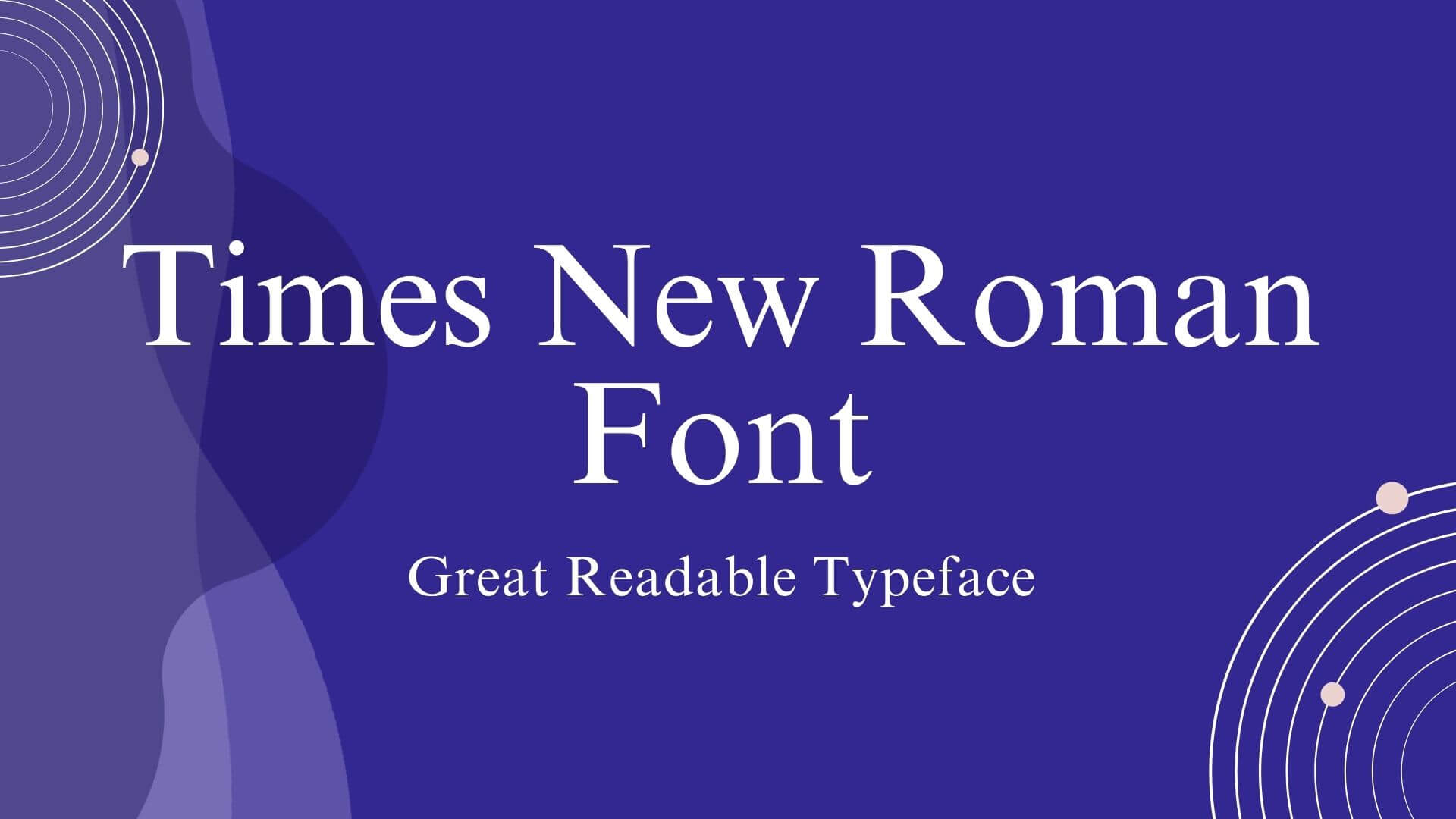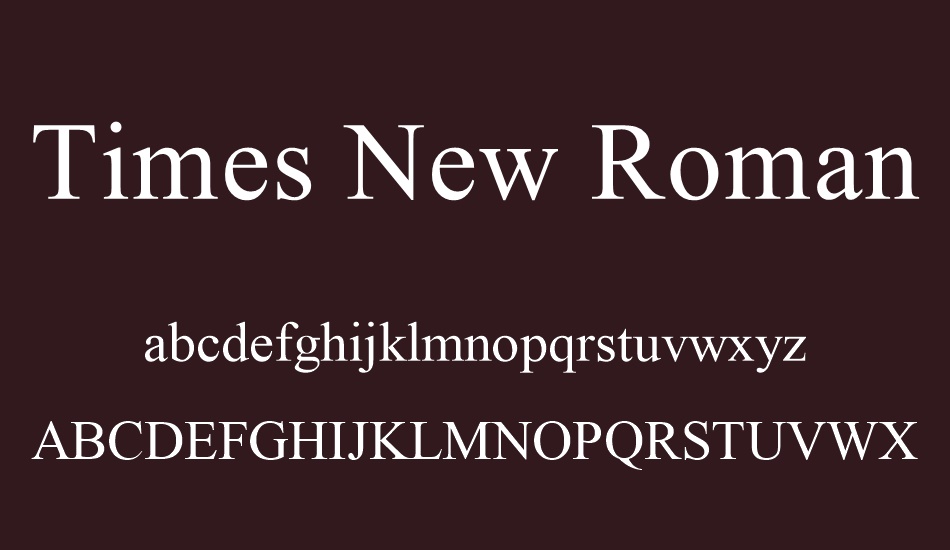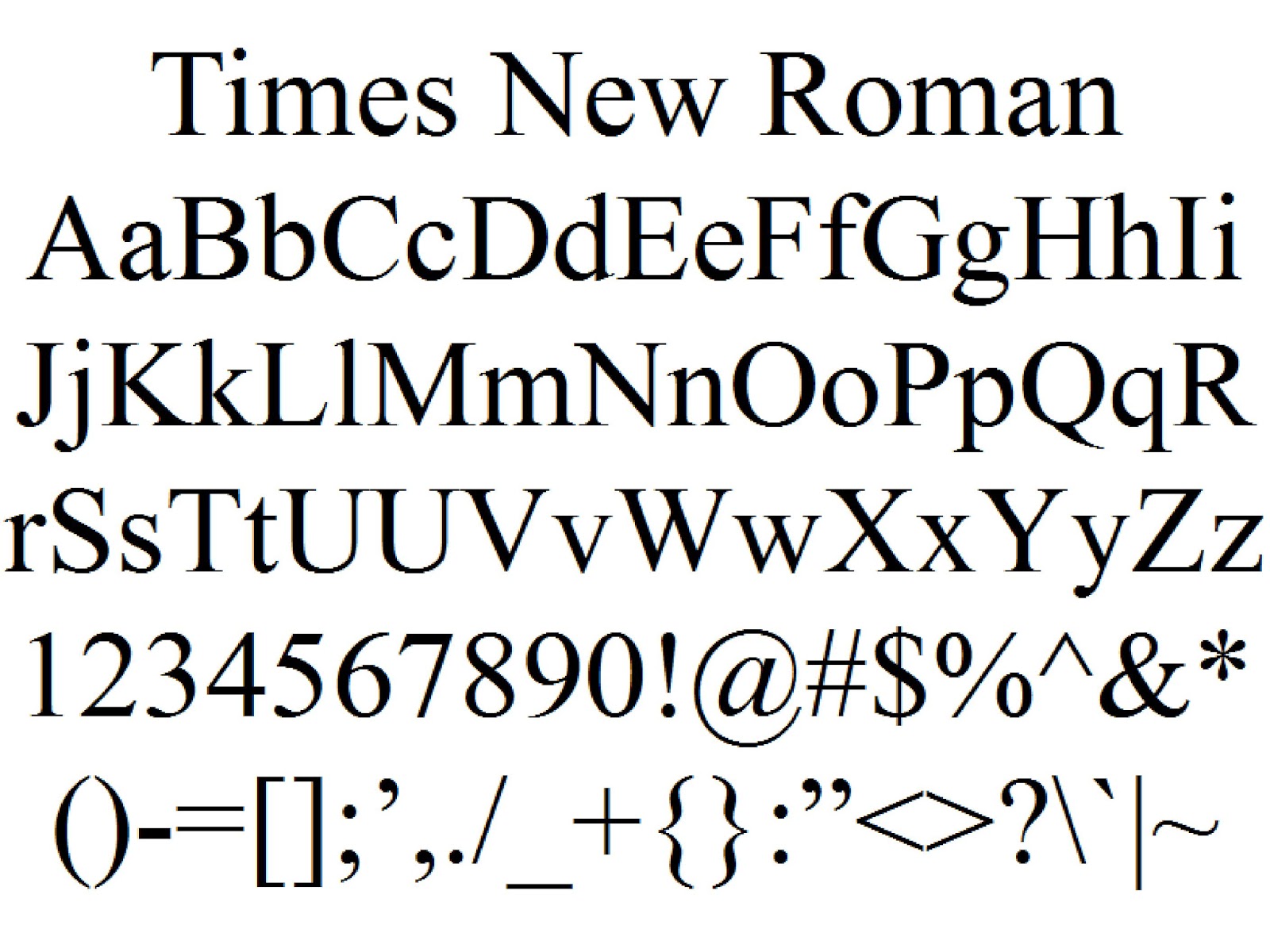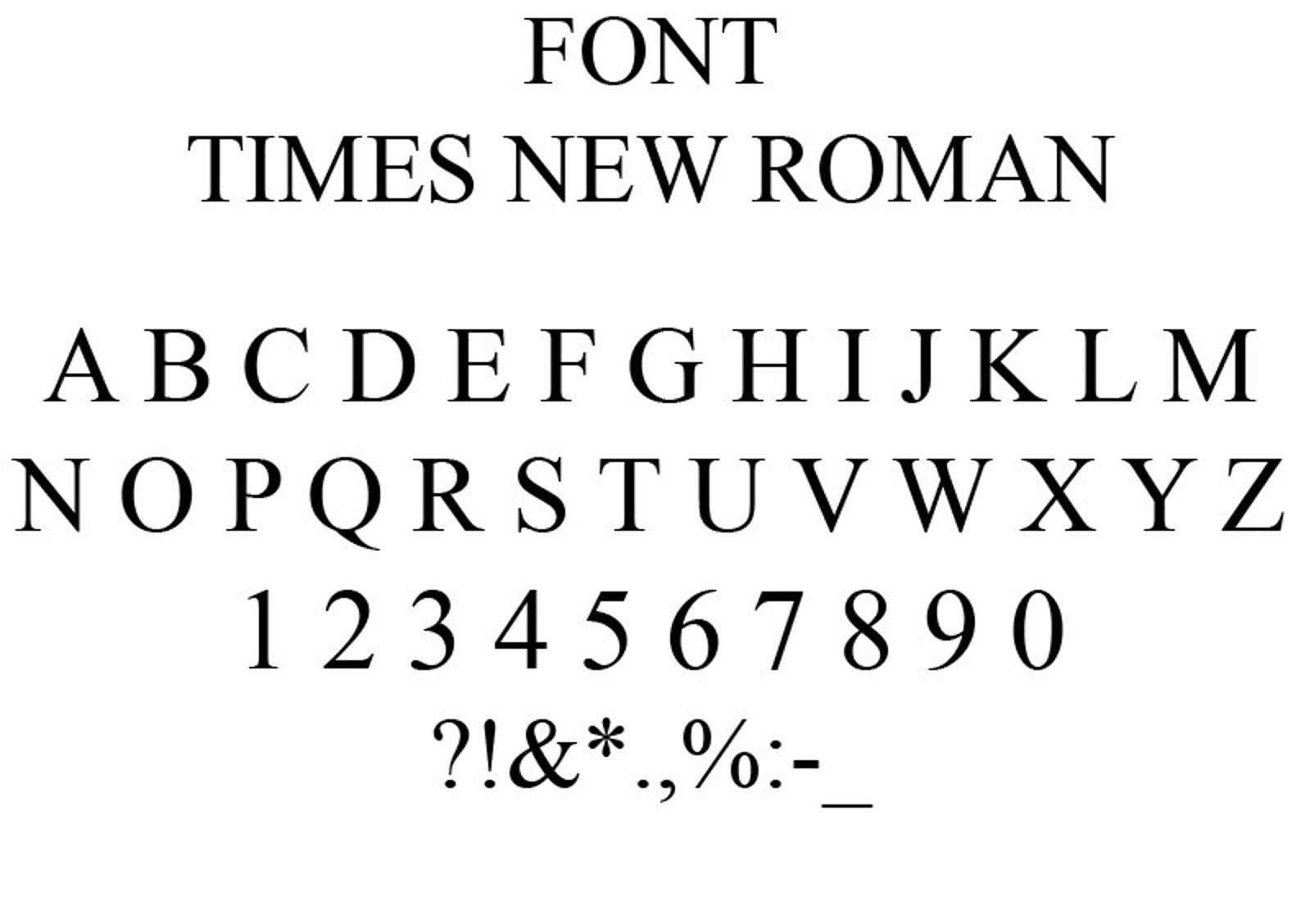
Times New Roman Family Font
Times New Roman Family Font - Times new roman, a modern example of a transitional serif design. Times new roman font family was designed by stanley morison, victor lardent, victor lardent stanley morison and published by monotype. Transitional, or baroque, serif typefaces first became common around.
Times new roman, a modern example of a transitional serif design. Times new roman font family was designed by stanley morison, victor lardent, victor lardent stanley morison and published by monotype. Transitional, or baroque, serif typefaces first became common around.
Times New Roman Font
Times new roman font family was designed by stanley morison, victor lardent, victor lardent stanley morison and published by monotype. Times new roman, a modern example of a transitional serif design. Transitional, or baroque, serif typefaces first became common around.
Times new roman font family was designed by stanley morison, victor lardent, victor lardent stanley morison and published by monotype. Transitional, or baroque, serif typefaces first became common around. Times new roman, a modern example of a transitional serif design.
Times new roman font family was designed by stanley morison, victor lardent, victor lardent stanley morison and published by monotype. Times new roman, a modern example of a transitional serif design. Transitional, or baroque, serif typefaces first became common around.
Times new roman, a modern example of a transitional serif design. Transitional, or baroque, serif typefaces first became common around. Times new roman font family was designed by stanley morison, victor lardent, victor lardent stanley morison and published by monotype.
Transitional, or baroque, serif typefaces first became common around. Times new roman font family was designed by stanley morison, victor lardent, victor lardent stanley morison and published by monotype. Times new roman, a modern example of a transitional serif design.
Times new roman, a modern example of a transitional serif design. Times new roman font family was designed by stanley morison, victor lardent, victor lardent stanley morison and published by monotype. Transitional, or baroque, serif typefaces first became common around.
Times new roman, a modern example of a transitional serif design. Transitional, or baroque, serif typefaces first became common around. Times new roman font family was designed by stanley morison, victor lardent, victor lardent stanley morison and published by monotype.
Times new roman font family was designed by stanley morison, victor lardent, victor lardent stanley morison and published by monotype. Times new roman, a modern example of a transitional serif design. Transitional, or baroque, serif typefaces first became common around.
The Times New Roman Typeface Debuts History of Information
Times new roman, a modern example of a transitional serif design. Transitional, or baroque, serif typefaces first became common around. Times new roman font family was designed by stanley morison, victor lardent, victor lardent stanley morison and published by monotype.
TIMES NEW ROMAN Alfabeto Svg Fuentes Fuente de caligrafía Etsy España
Times new roman font family was designed by stanley morison, victor lardent, victor lardent stanley morison and published by monotype. Transitional, or baroque, serif typefaces first became common around. Times new roman, a modern example of a transitional serif design.
Times New Roman, A Modern Example Of A Transitional Serif Design.
Transitional, or baroque, serif typefaces first became common around. Times new roman font family was designed by stanley morison, victor lardent, victor lardent stanley morison and published by monotype.